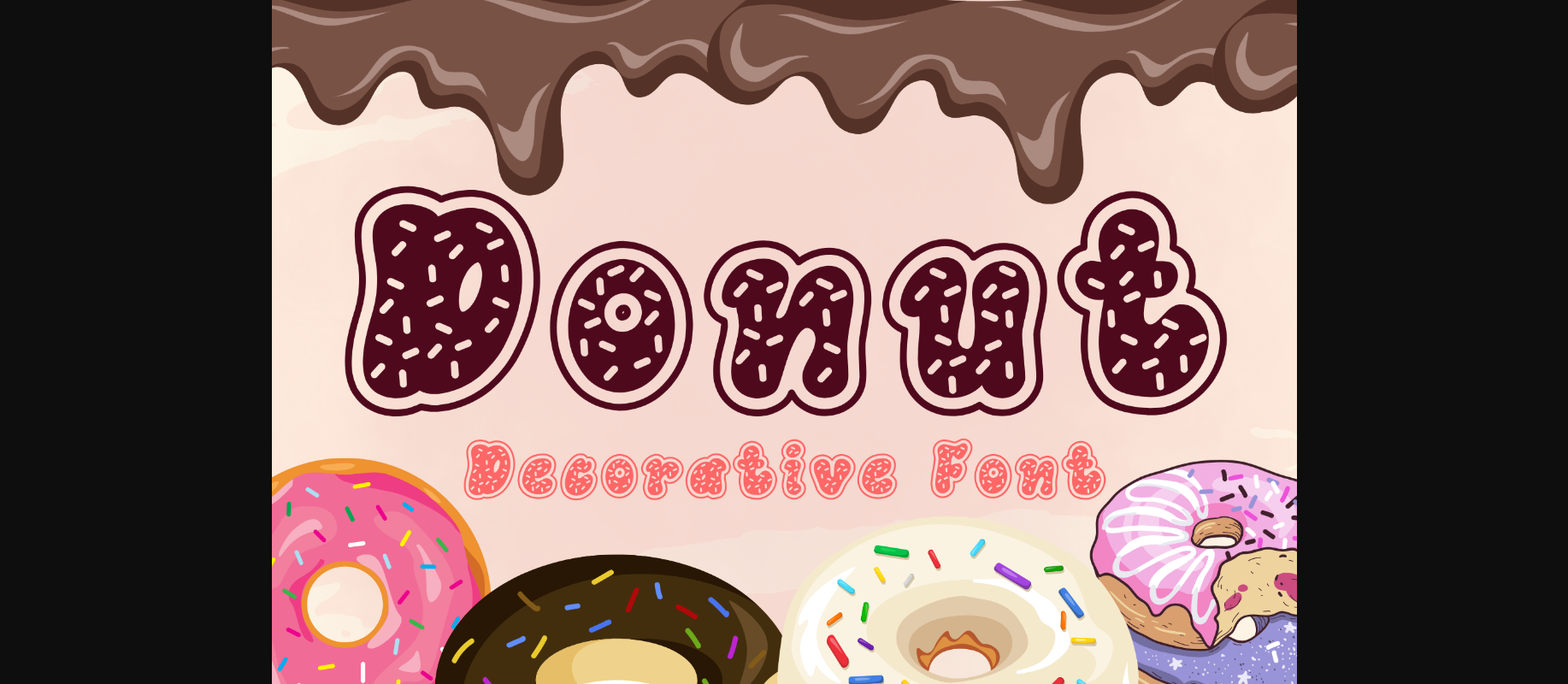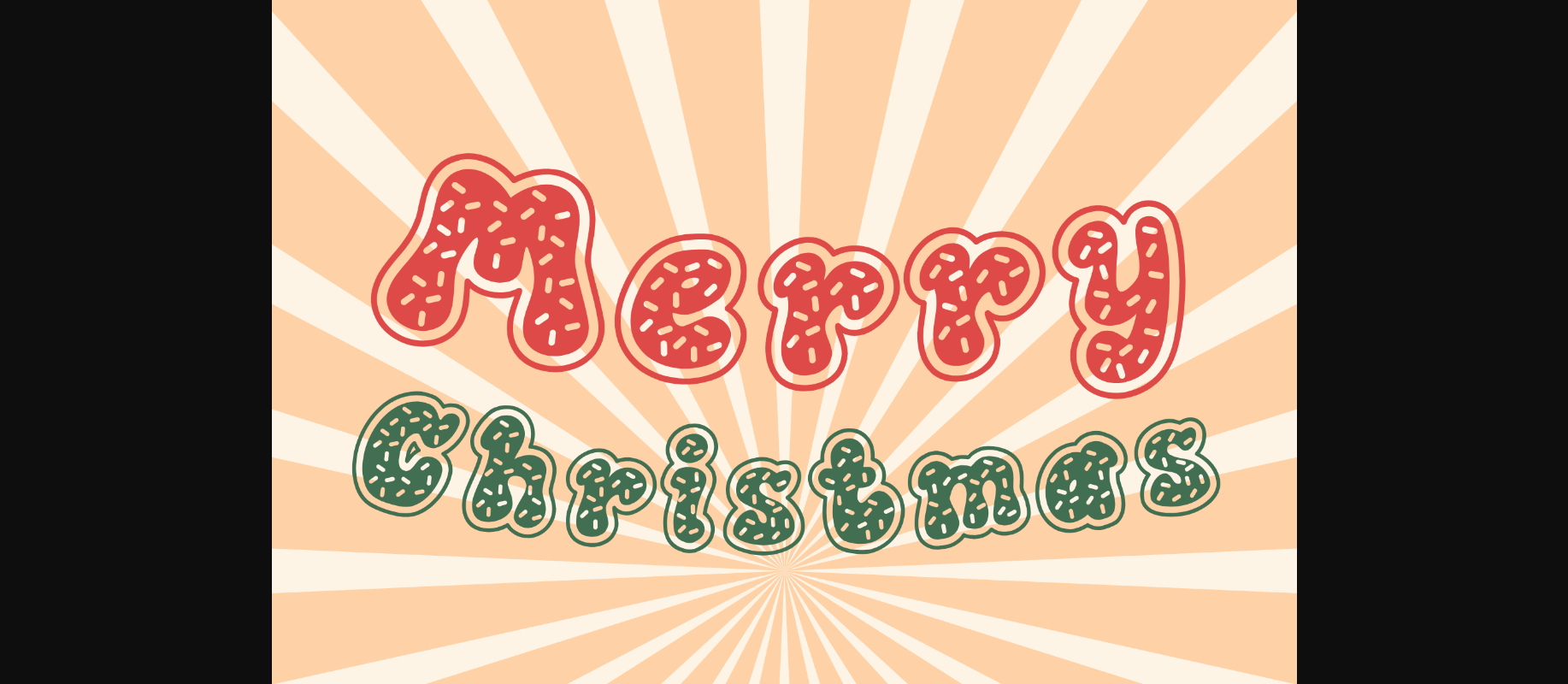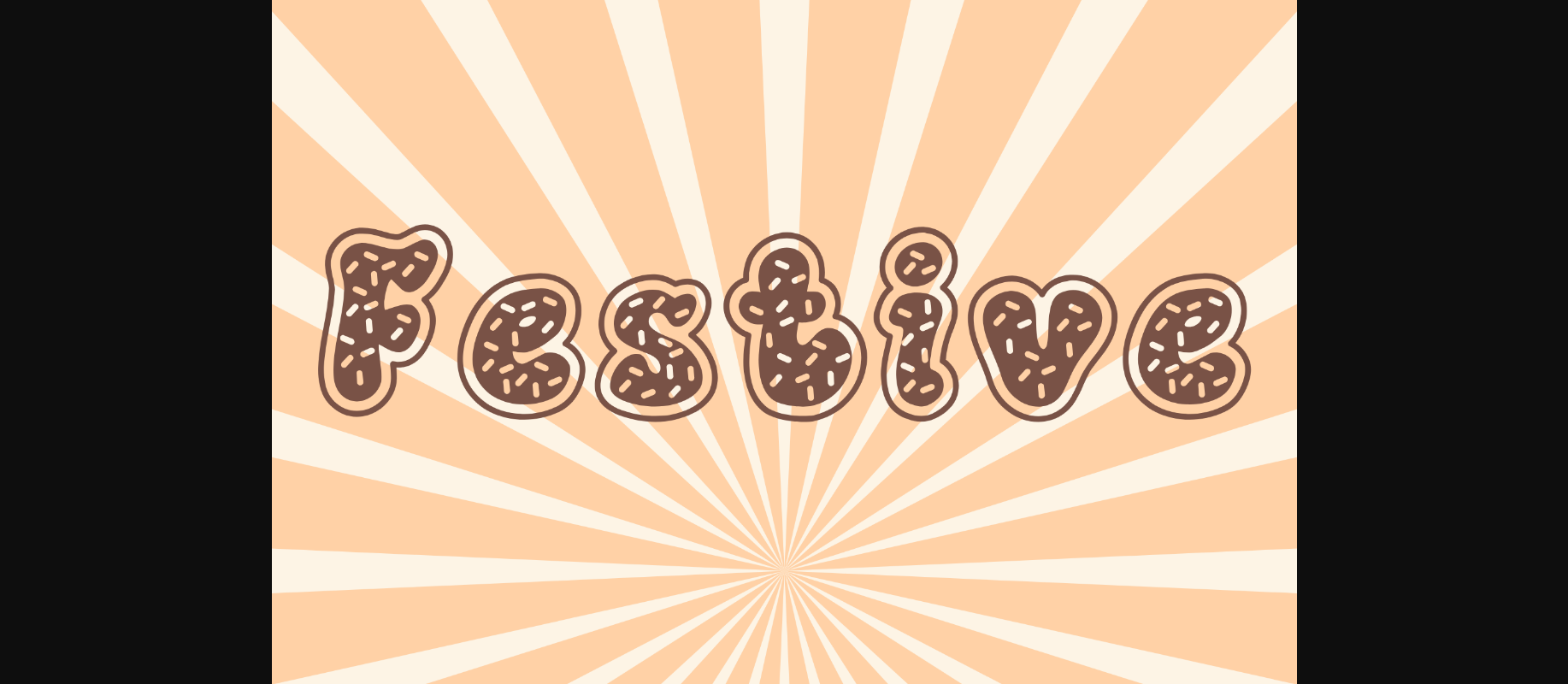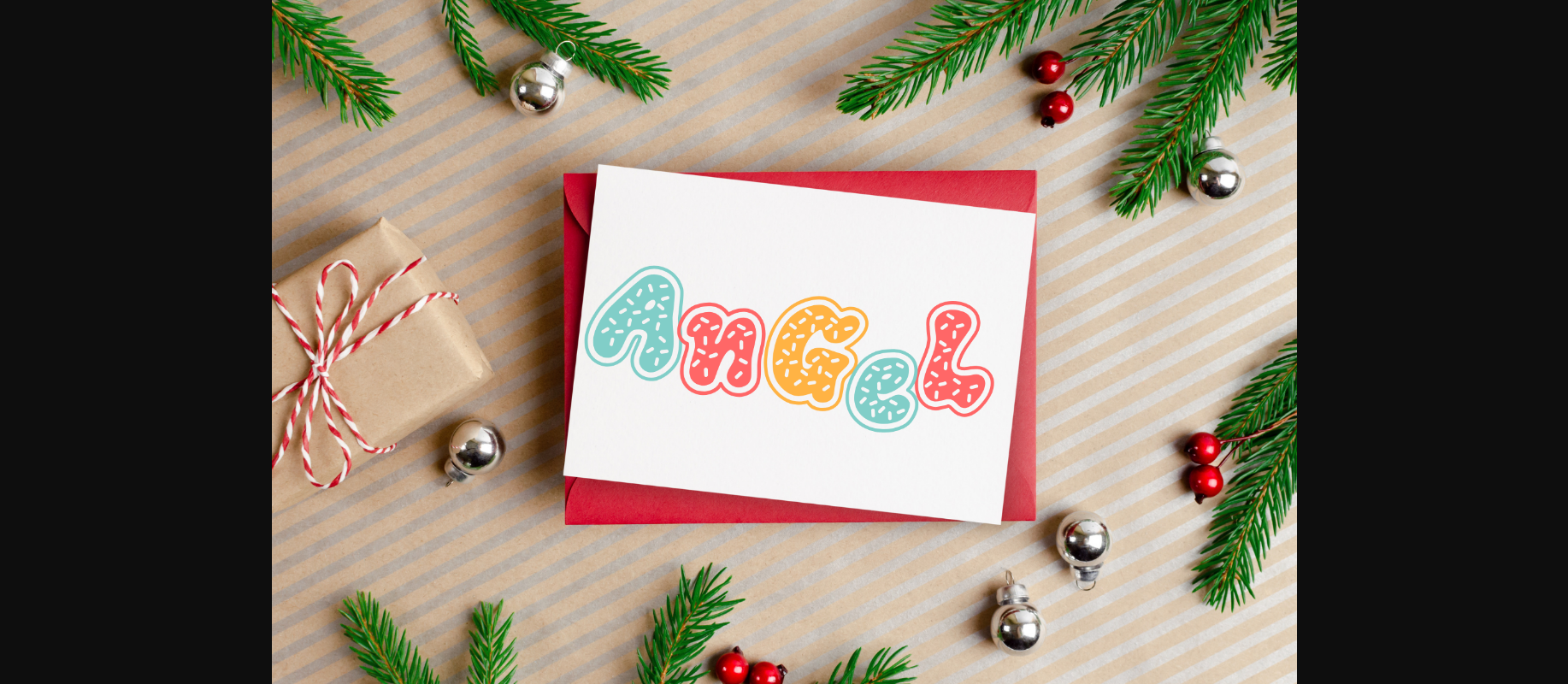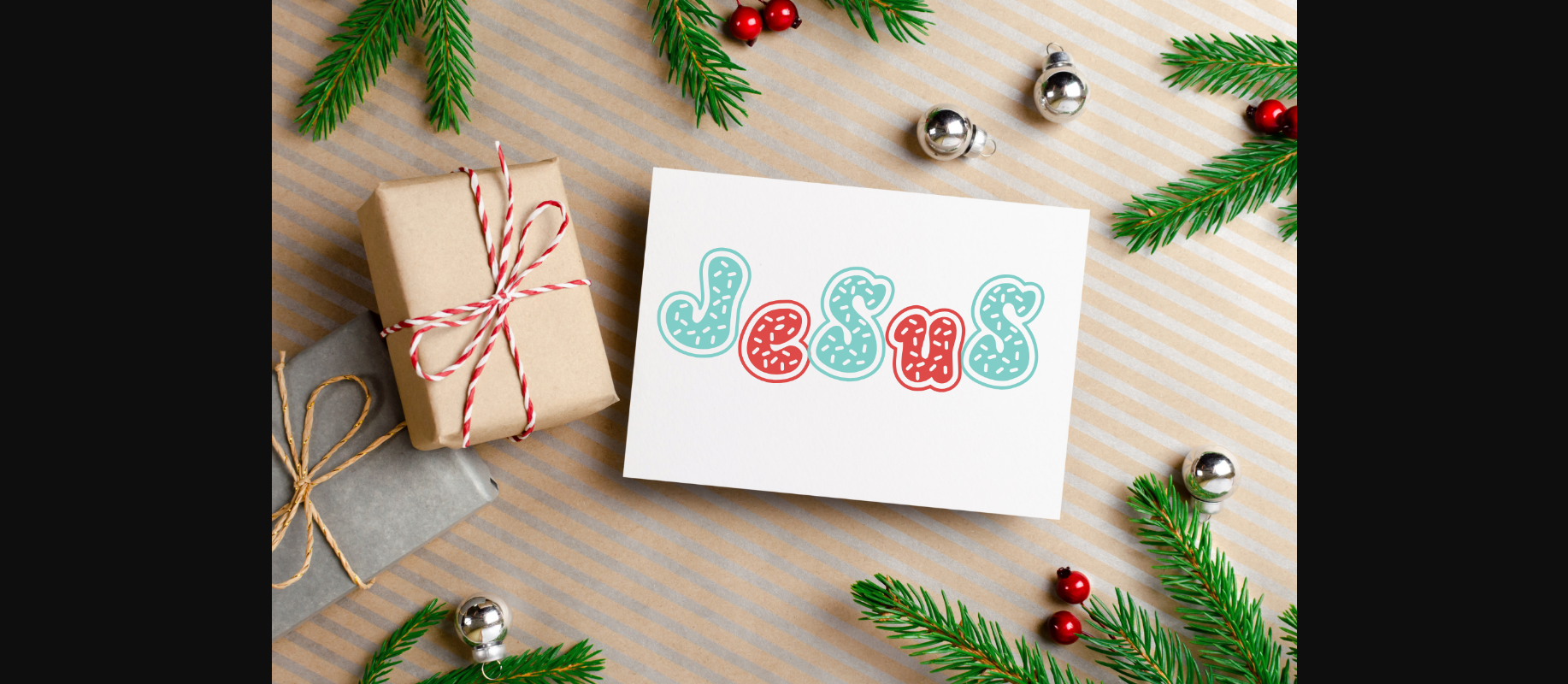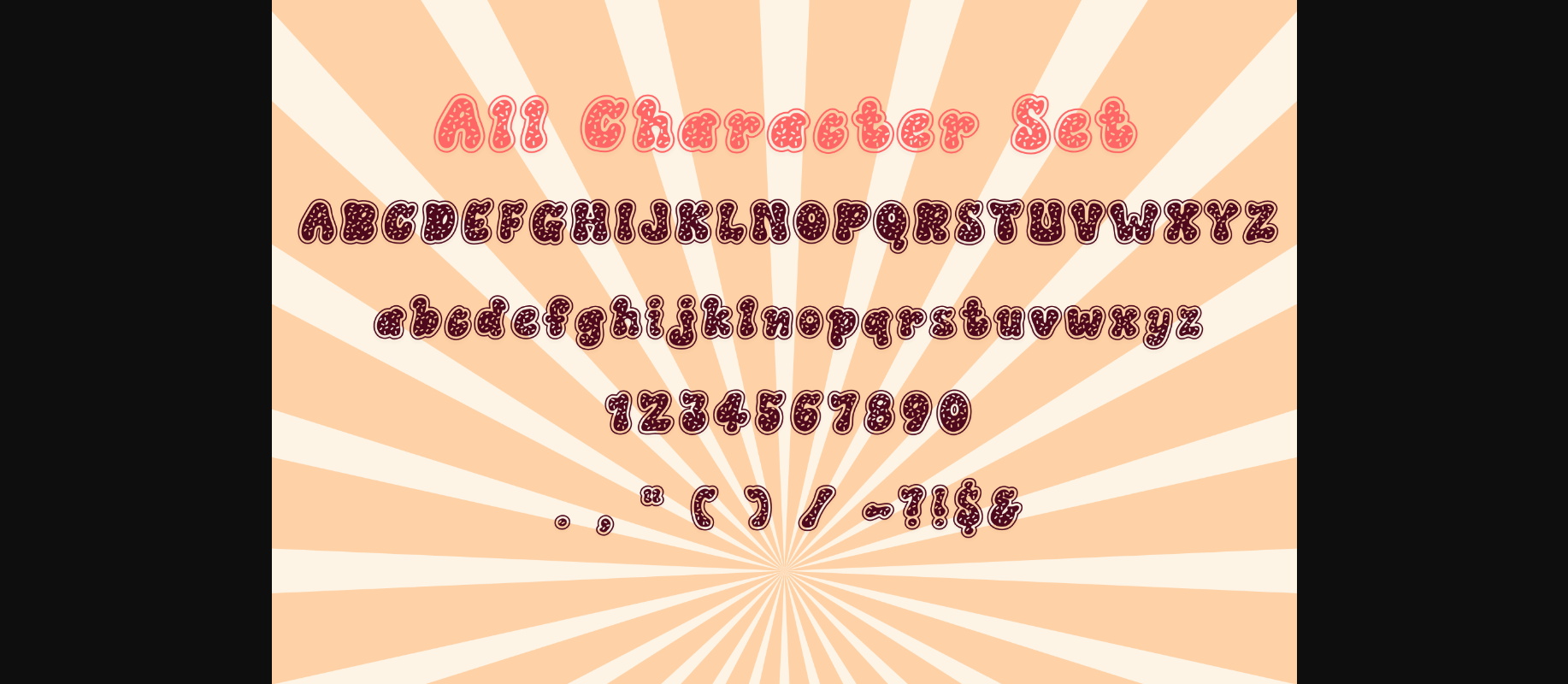
Donut Font
About Donut Font
Donut is a Christmas decorative font. It embodies playfulness and authenticity and is the perfect choice for all your favorite projects, or even for blog posts, logos, branding, ads, invitations, greeting cards, planners, photo albums, decorations, and much more. Add it to any of your designs, and enjoy the results!